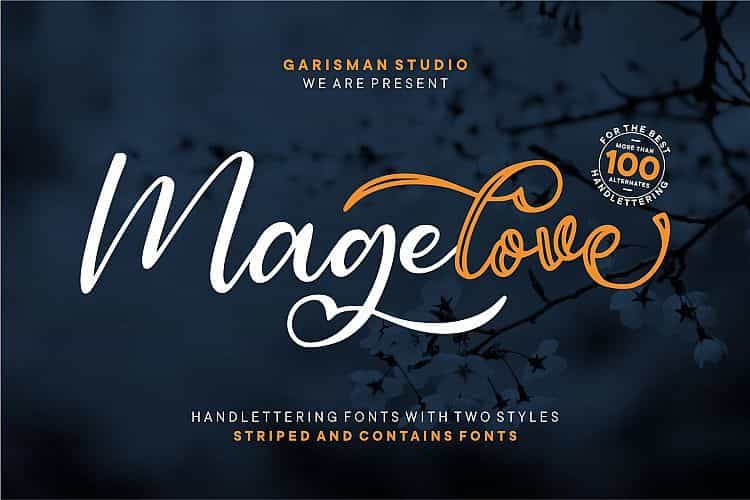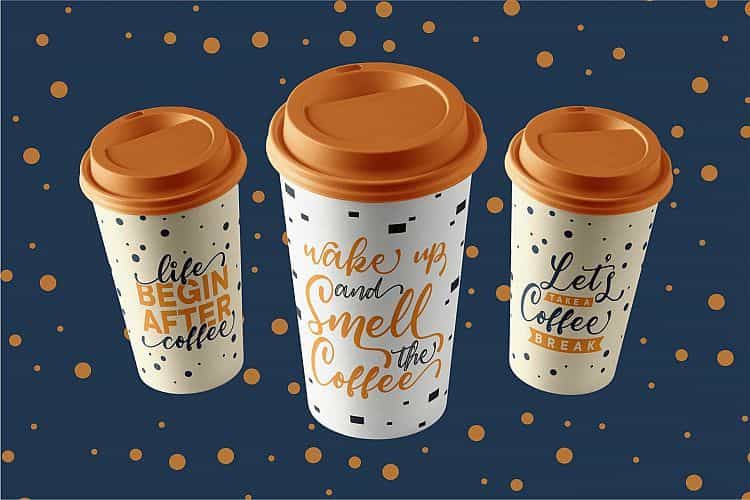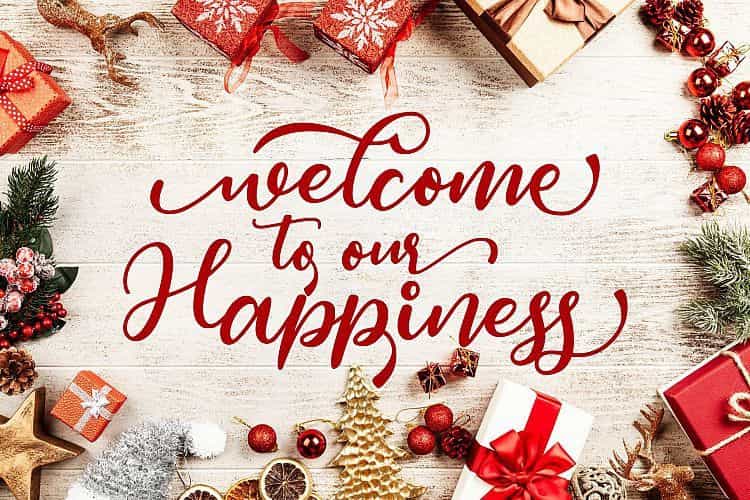
Magelove Font – Be inspired by this fancy, flexible and charming handwritten with a contemporary and simple style. A plethora of modern options will be a great source of inspiration for you and will allow you to create a lot of different designs. Magelove Calligraphy was created and then shared by Garisman Studio. Magelove a handlettering font is a natural & beautiful handwritten font to get natural and natural handwriting.